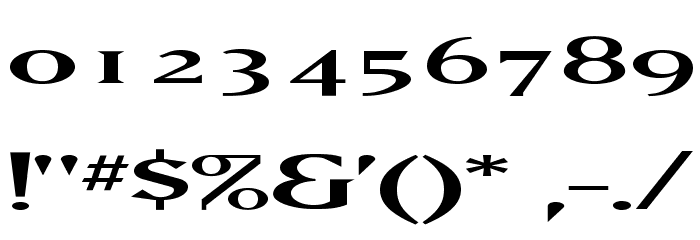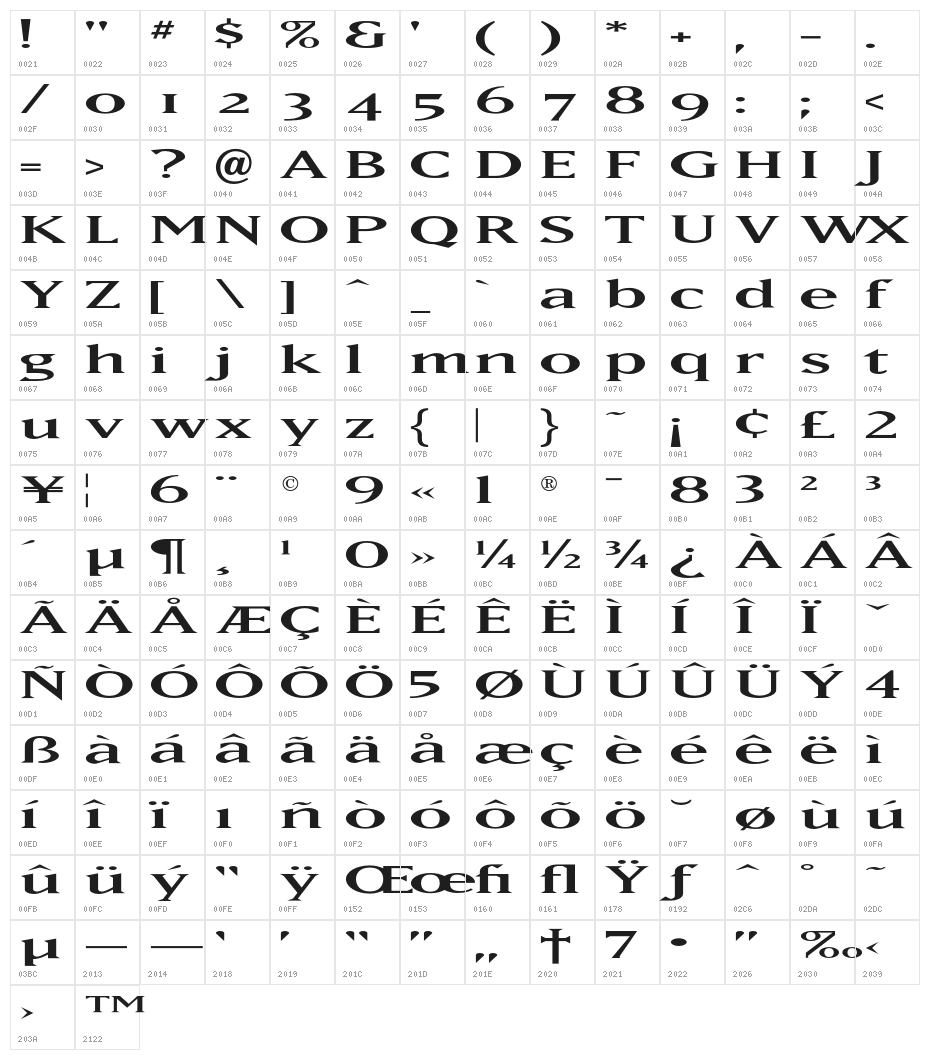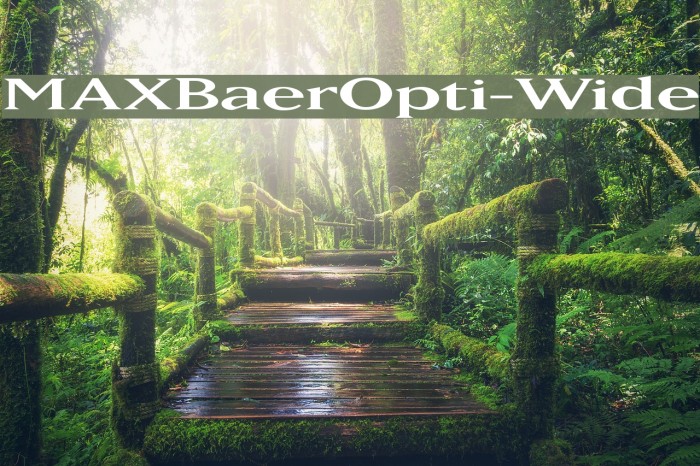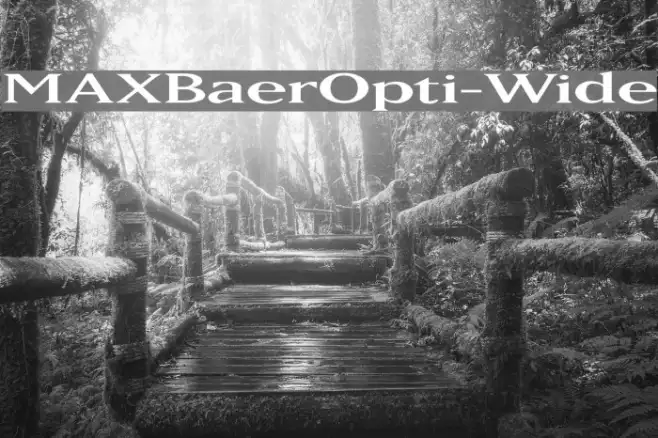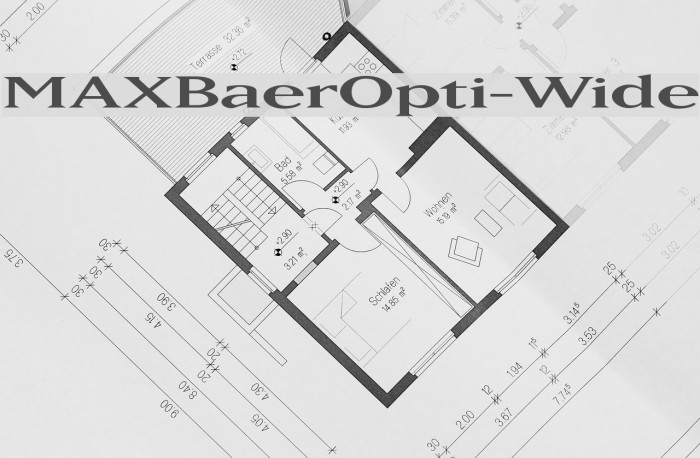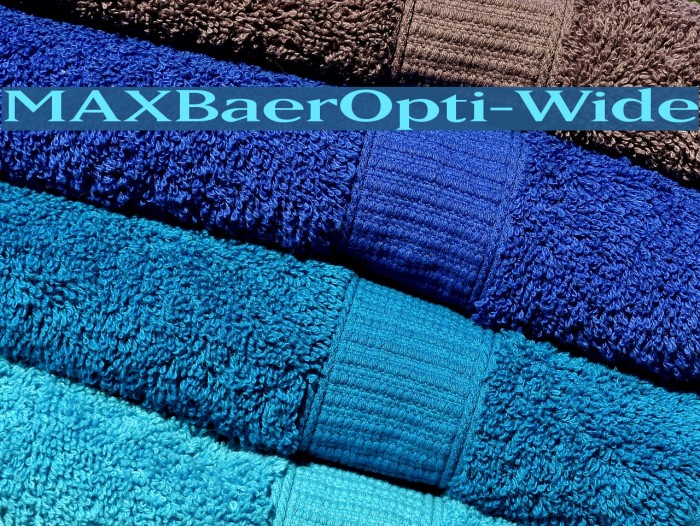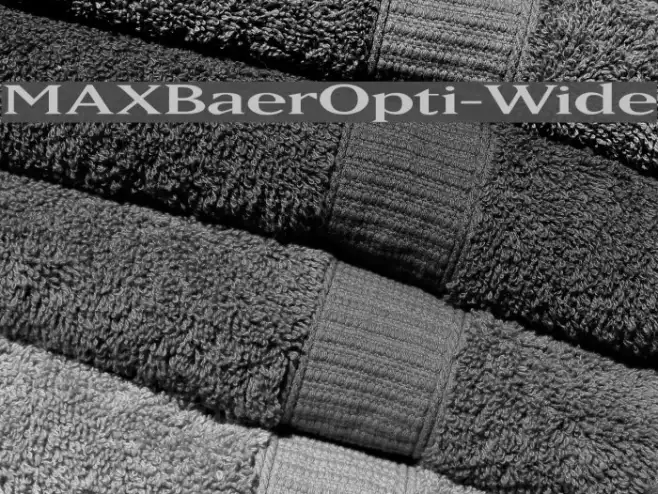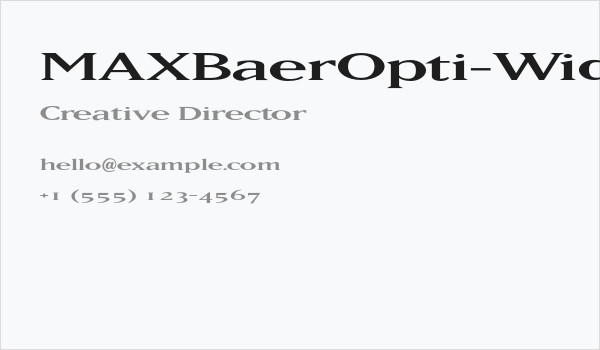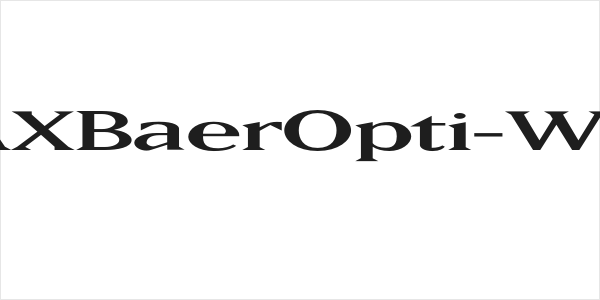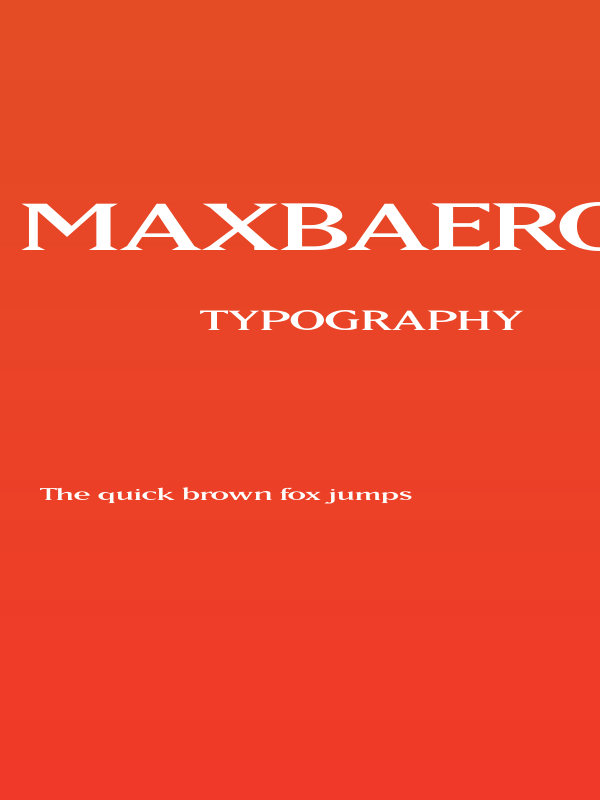
MAXBaerOpti-Wide Font
MAXBaerOpti-Wide Description
This font features a bold and striking design with high contrast between thick and thin strokes, giving it a dynamic and elegant appearance. The serifs are sharp and pronounced, contributing to a classic yet modern aesthetic. The uppercase letters are particularly wide, providing a sense of stability and strength. The lowercase letters maintain a consistent style, with smooth curves and clean lines. The numerals are clear and distinct, ensuring readability. Special characters are designed with the same attention to detail, enhancing the font's versatility.
| Proposed Projects | Ideal for branding, editorial design, and luxury product packaging. |